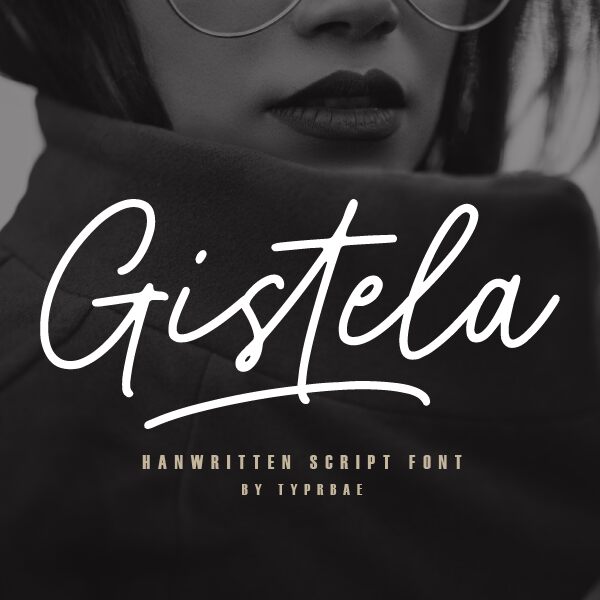
Gistela font by Typebae Foundry is a free handwritten font that captures the natural and elegant flow of penmanship. It combines a modern casual feel with expressive rhythm, offering informal sophistication and contemporary versatility. This font smoothly integrates handwritten fluidity into your personal projects, creating a unique and delicate visual experience.
Use Gistela in social media posts, digital scrapbooks, invitation cards, quote graphics, posters, greeting cards, apparel designs, and other creative endeavors. Its style suits branding, packaging, signage, and website headers, expressing authenticity in each application.